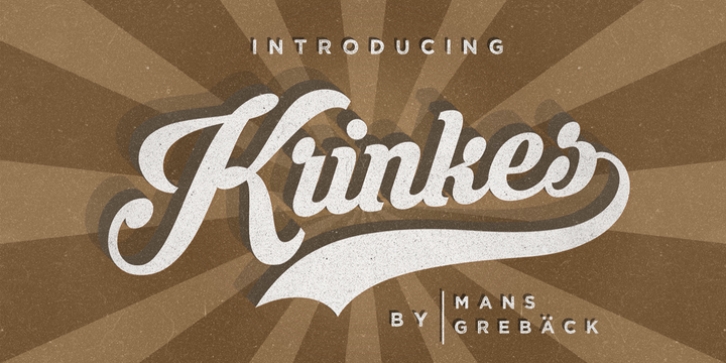
Krinkes was designed by Måns Grebäck and published by Mans Greback. Krinkes contains 4 styles and family package options.
Includes a regular version and a decor version with large, decorative capital letters. Each version comes with numbers and swashes.
Krinkes Regular·
Krinkes Regular Swash·
Krinkes Decor·